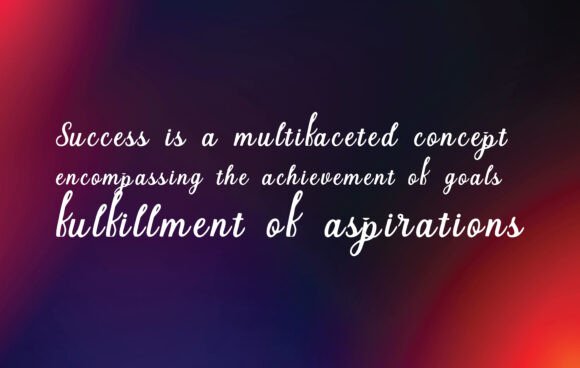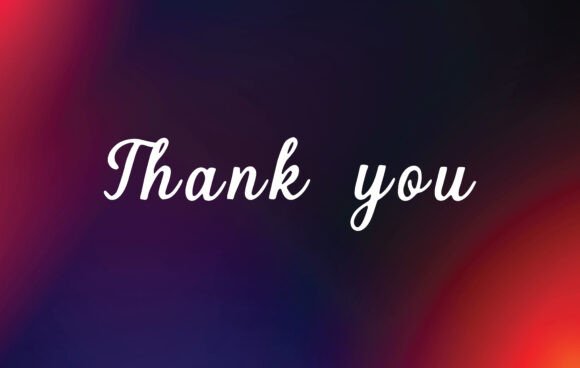
Introducing Asa Font: The Epitome of Elegance and Refinement
In the world of typography, few fonts manage to convey the essence of elegance and charm as effortlessly as Asa Font. This beautiful script font is a masterpiece of design, boasting smooth, flowing strokes and a stylish handwritten feel that instantly elevates any design project. Whether you’re a designer, craftsperson, or simply someone with a keen eye for aesthetics, Asa Font is sure to captivate and inspire.
The Characteristics of Asa Font
Asa Font is distinguished by its graceful and refined appearance, making it an ideal choice for projects that demand a touch of sophistication. Its key characteristics include:
- Smooth Flowing Strokes: The fluidity of Asa’s strokes lends a sense of movement and dynamism to any design, making it perfect for creating visually appealing text.
- Stylish Handwritten Feel: Despite its polished appearance, Asa retains a distinctly handwritten charm, adding a personal touch to all manner of design projects.
- Elegance and Charm: Asa exudes a sense of elegance and charm that is hard to find in digital fonts, making it a standout choice for projects that require a unique aesthetic.
Perfect Applications for Asa Font
Asa Font’s versatility and beauty make it suitable for a wide range of applications. Some of the most popular uses for this stunning font include:
- Wedding Invitations: Add a touch of romance and sophistication to your wedding invitations with Asa Font, making your special day even more memorable.
- Personal Branding: Establish a refined and elegant brand identity with Asa Font, perfect for businesses and individuals looking to make a lasting impression.
- Feminine Logos: Asa Font’s stylish and graceful appearance makes it an excellent choice for designing feminine logos that are both elegant and empowering.
- Social Media Quotes: Elevate your social media presence with inspirational and stylish quotes crafted with Asa Font, guaranteed to capture the attention of your audience.
- Greeting Cards: Whether it’s a birthday, anniversary, or holiday greeting, Asa Font adds a personal and polished touch to your cards, making them truly special.
Why Choose Asa Font?
In a digital world flooded with fonts, Asa stands out for several reasons:
- Unique Aesthetic: Asa Font offers a unique blend of elegance, charm, and personal touch that is hard to find elsewhere.
- Versatility: Its adaptability makes it suitable for a wide range of projects, from digital designs to print materials.
- Easy to Read: Despite its elegant and flowing strokes, Asa Font remains clear and easy to read, making it practical for various applications.
Tips for Using Asa Font Effectively
To make the most of Asa Font, consider the following tips:
- Pair with Complementary Fonts: Combine Asa Font with simpler fonts for body text to create visual contrast and hierarchy in your designs.
- Adjust Letter Spacing: For a more customized look, experiment with letter spacing to find the perfect balance for your project.
- Use in Headers and Titles: Asa Font shines in headers and titles, so don’t hesitate to use it to draw attention to key parts of your design.
Asa Font is more than just a script font; it’s a design element that can transform your projects with its elegance, charm, and refined appearance. Whether you’re working on wedding invitations, personal branding, or simply looking for a stylish way to present quotes on social media, Asa Font is an excellent choice. Its versatility, unique aesthetic, and ease of use make it a valuable addition to any designer’s toolkit. So why settle for ordinary when you can add a touch of sophistication and charm with Asa Font?